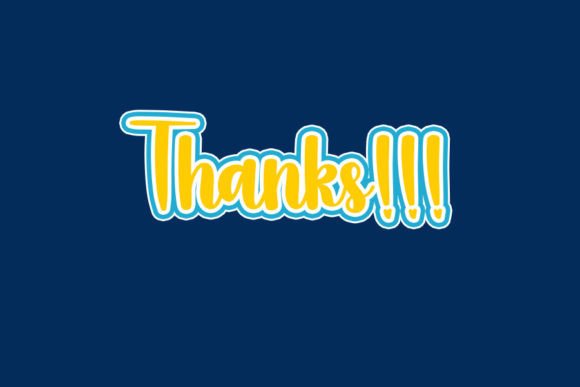
Wizenard Font
Introducing “Wizenard,” a sweet and cute handwritten font that captures hearts with its versatile and endearing style. This font is designed to be incredibly adaptable, making it a perfect choice for a variety of creative projects. Fall in love with “Wizenard” as you use it to create gorgeous wedding invitations, beautiful stationary art, eye-catching social media posts, and so much more.
The sweet and cute aesthetic of “Wizenard” lends itself well to a range of designs, infusing a sense of charm and playfulness into every project. Whether you’re planning a wedding, creating stationary art, or engaging with your audience on social media, this font brings a delightful touch to your visual content.
Wedding invitations crafted with “Wizenard” radiate a warm and inviting feel. The handwritten style adds a personal touch, making the invitations not just informative but also emotionally resonant. The cute and sweet elements of the font contribute to the overall romantic atmosphere of the event.
In stationary art, “Wizenard” becomes a charming choice, transforming ordinary pieces into delightful expressions of creativity. The font’s handwritten charm adds authenticity to the artwork, making it visually appealing and relatable.
For social media posts, “Wizenard” stands out with its eye-catching style. The cute and versatile design of the font enhances the visual impact of your content, making it more engaging and shareable across platforms.
The beauty of “Wizenard” lies in its adaptability. Whether you’re working on invitations, stationary art, social media posts, or any other creative project, this font is your reliable companion. It effortlessly infuses a sweet and cute vibe into your designs, creating a memorable and inviting visual experience.
In summary, “Wizenard” is not just a font; it’s a design tool that brings sweetness and cuteness to a variety of projects. Its versatility makes it suitable for weddings, stationary art, social media, and beyond. Fall in love with the endearing style of “Wizenard” as it becomes the heart of your creative expressions, adding a touch of charm to every design.